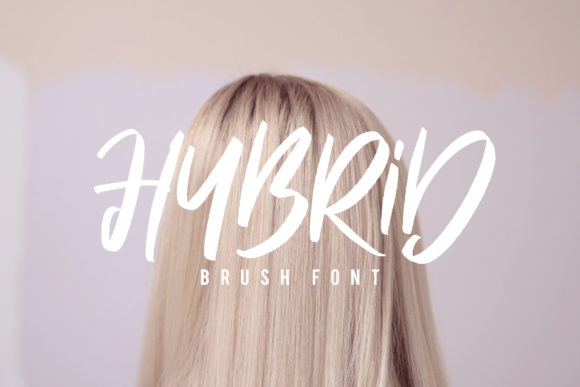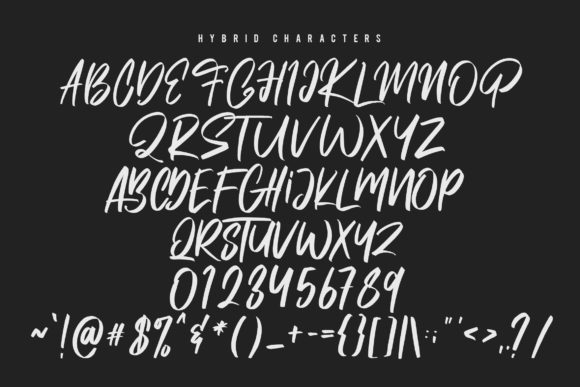
About Hybrid Font
Hybrid looks spectacular! This handwritten font has been created with the help of a brush pen. It will elevate a wide range of design projects to the highest level, be it branding, headings, wedding designs, invitations, signatures, logos, labels, and much more!